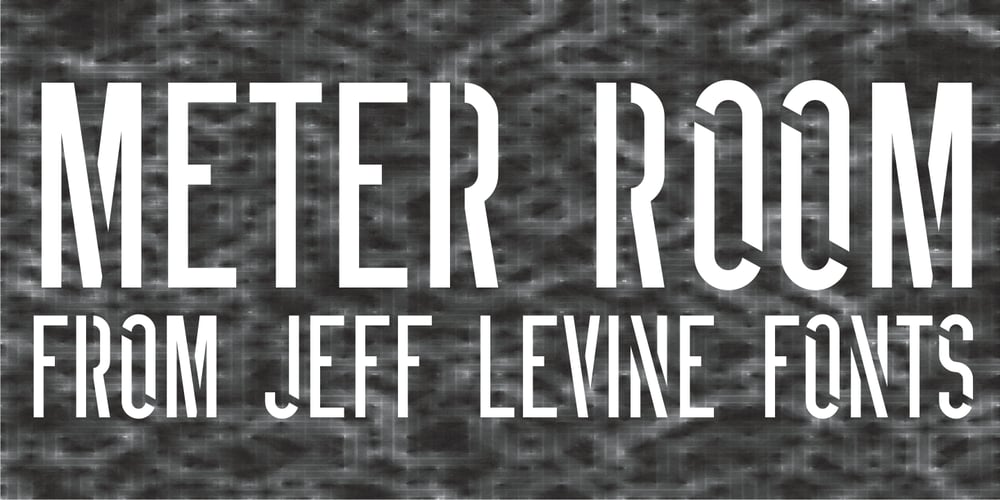
Meter Room JNL
Meter Room JNL font
Meter Room JNL Font Family was designed by Jeff Levine and published by Jeff Levine. Meter Room JNL contains 1 styles and family package options. The design idea for Meter Room JNL comes from a vintage brass hand-cut stencil of the words “High Voltage”. What makes this stencil font a bit different than others is the placement and angle of some of the “breaks” within the letters.